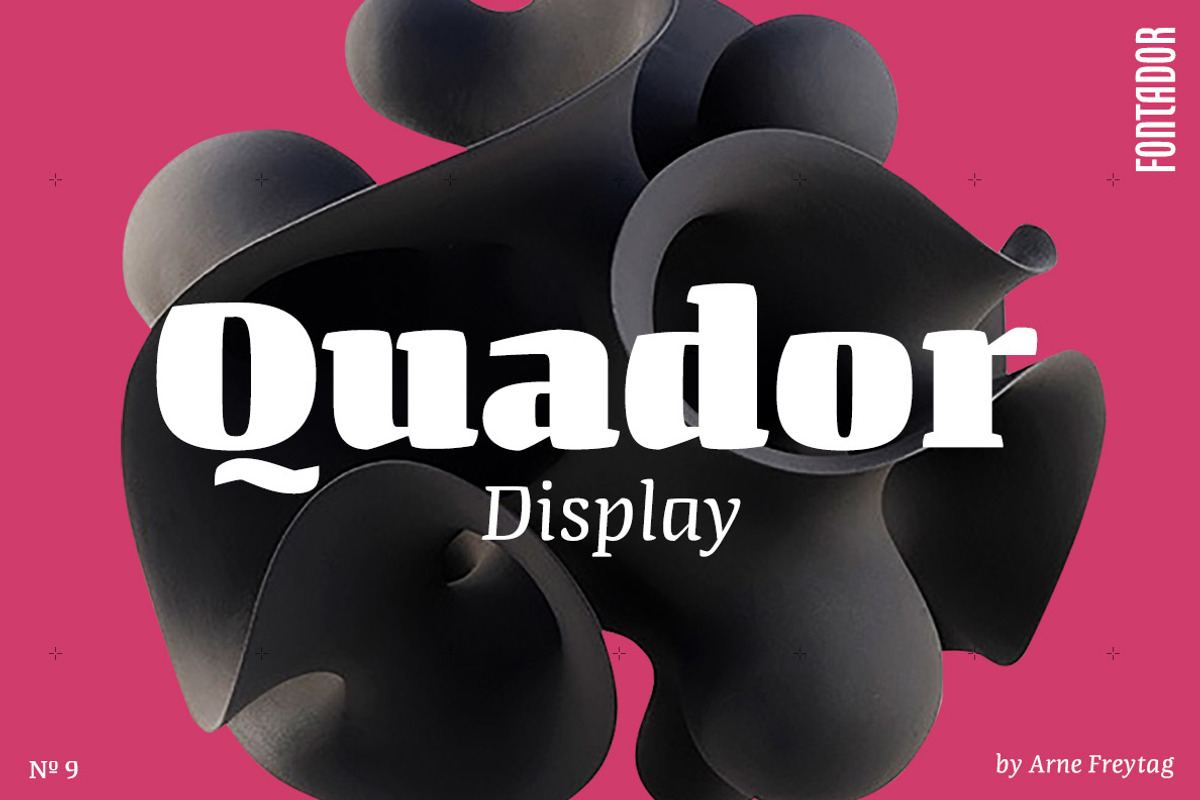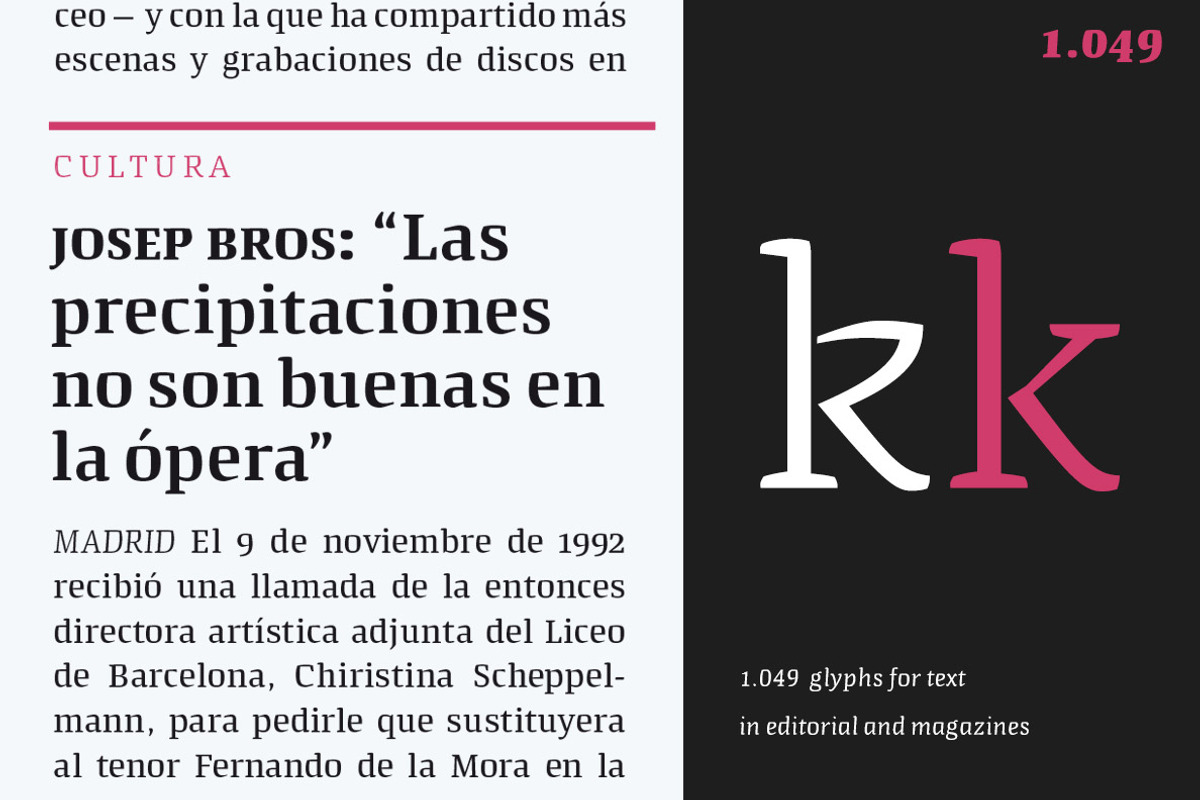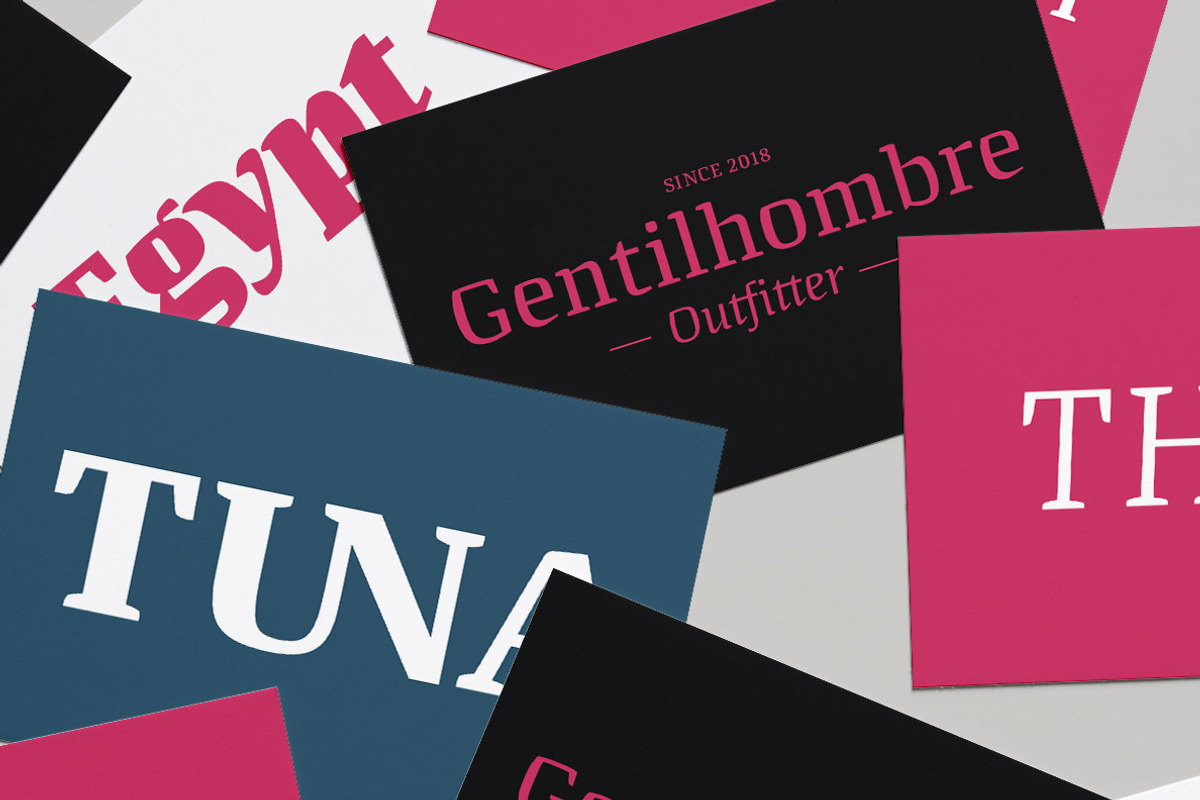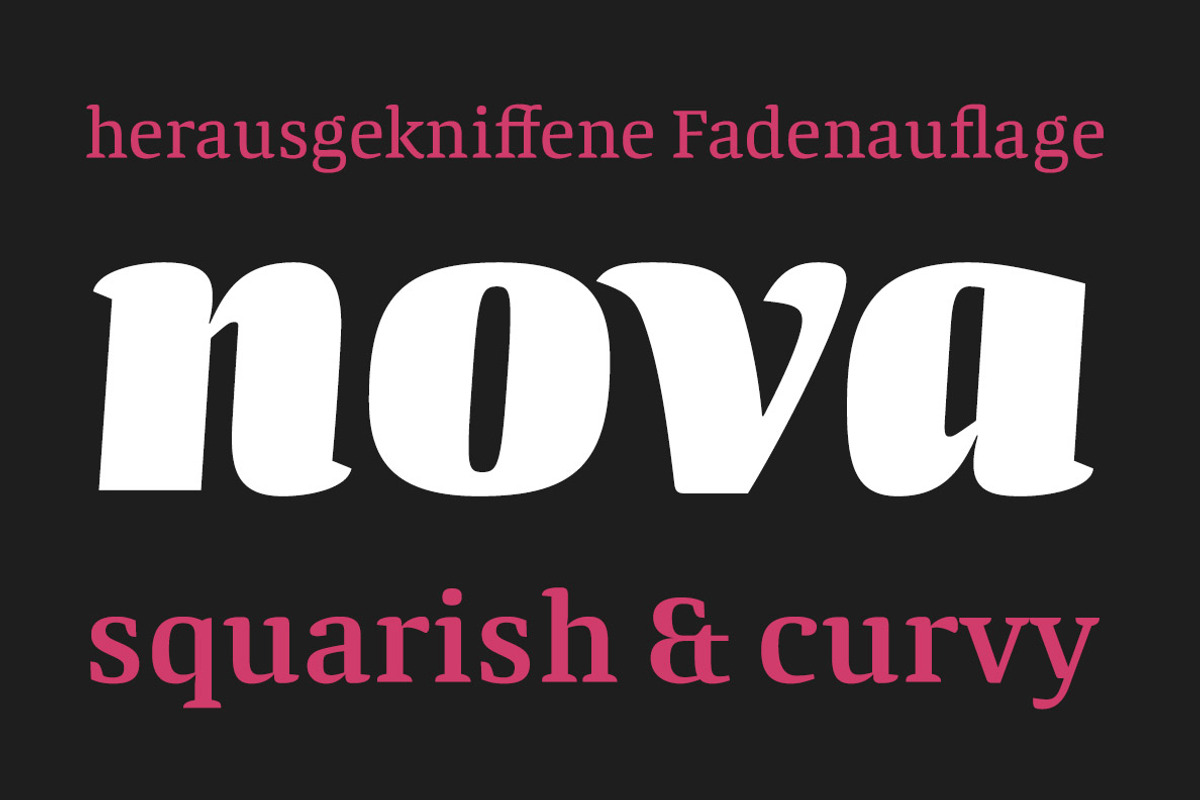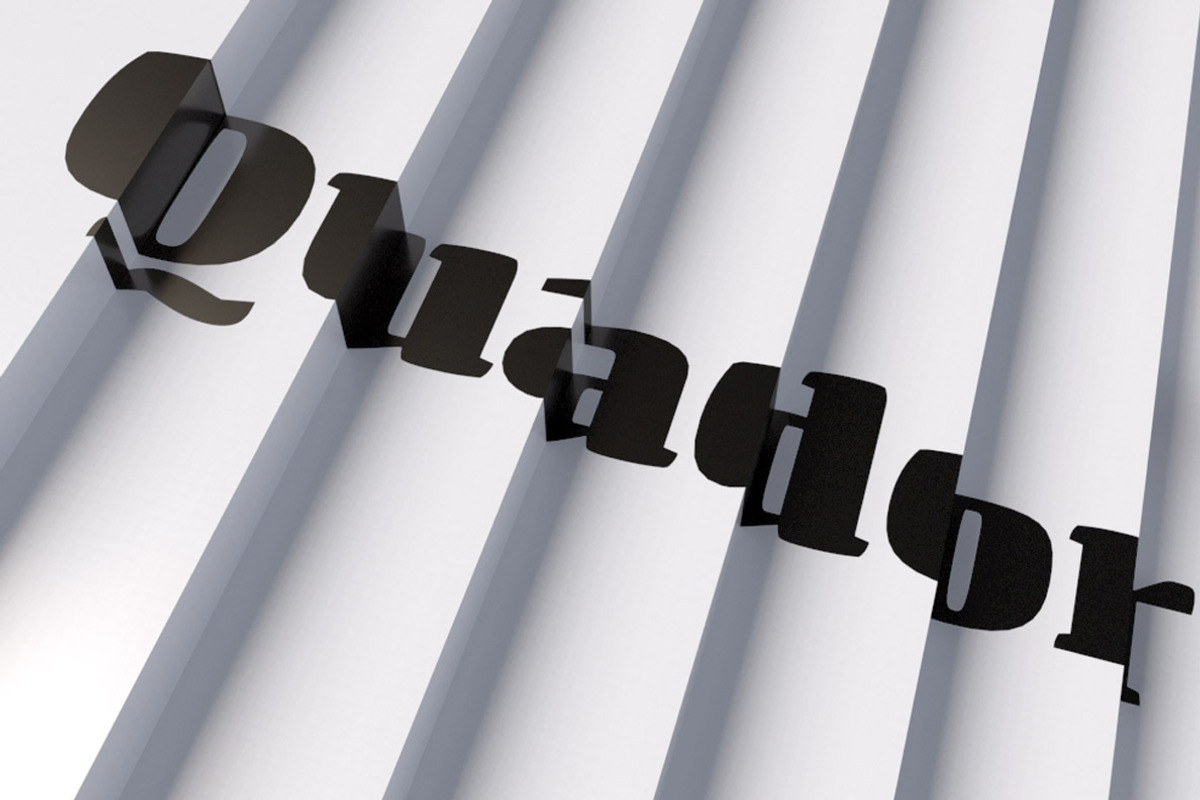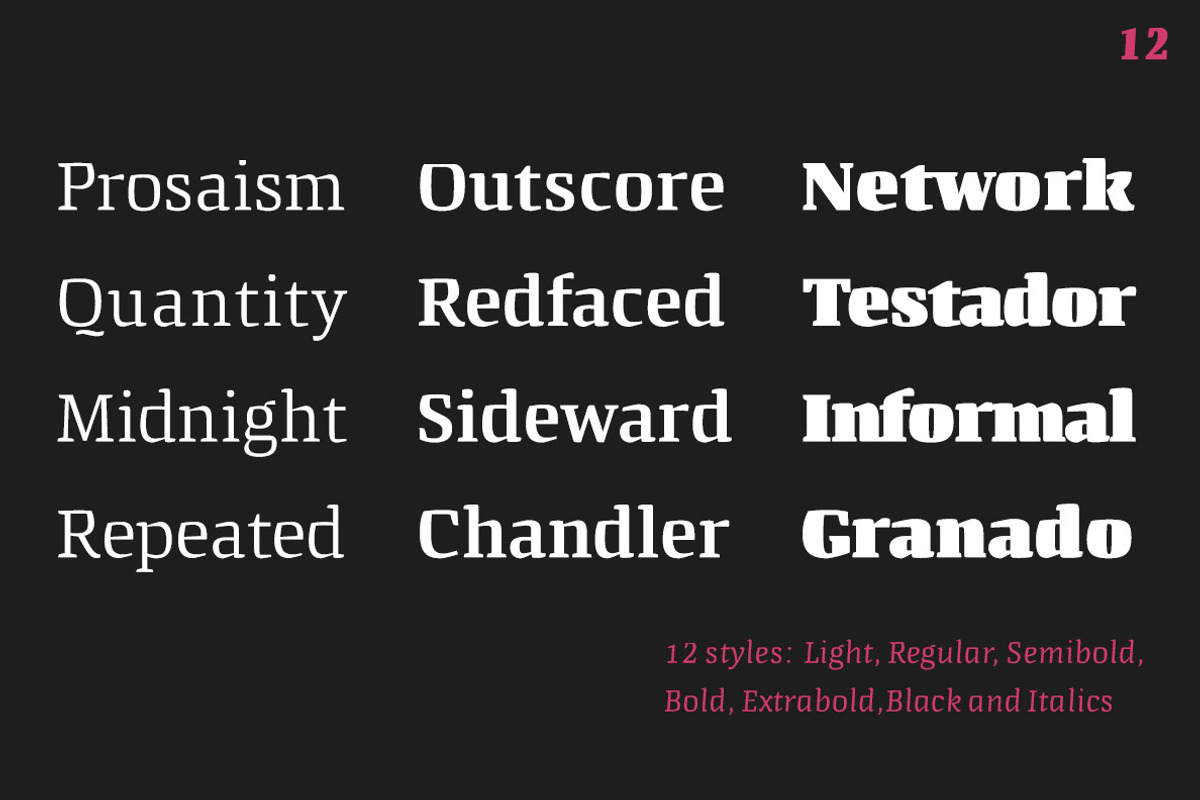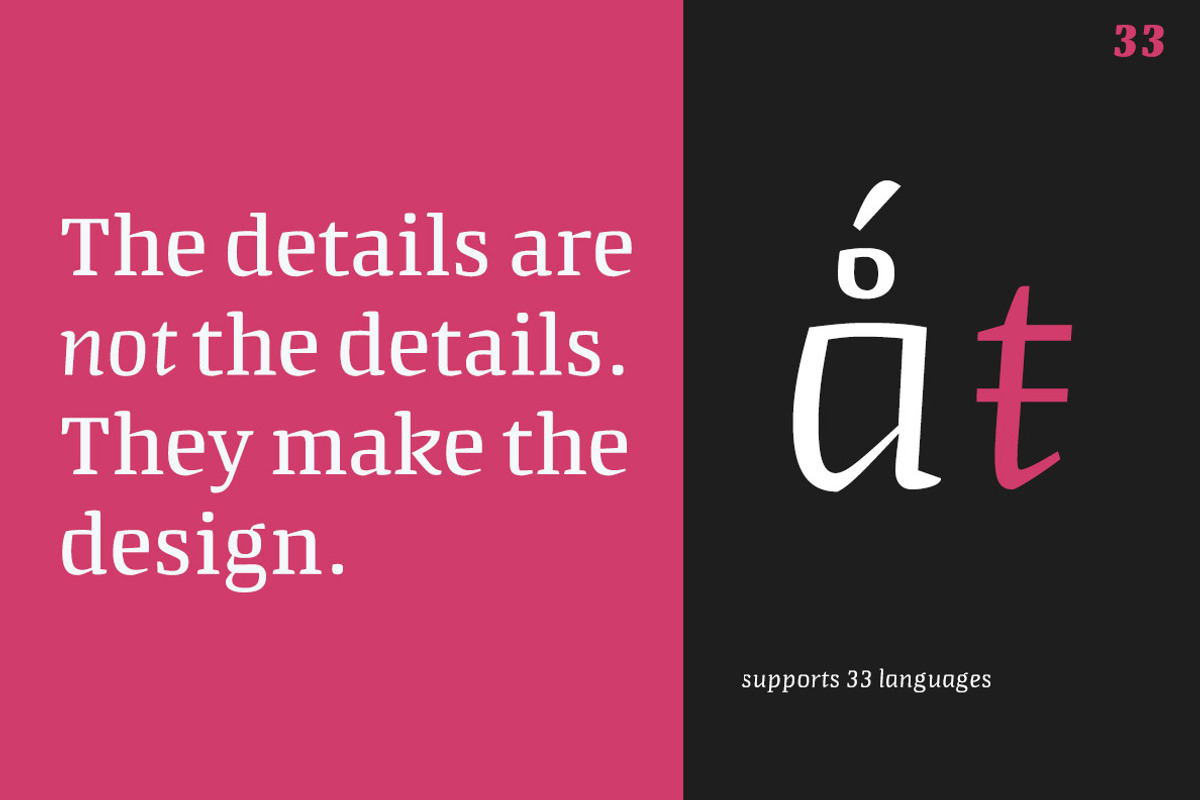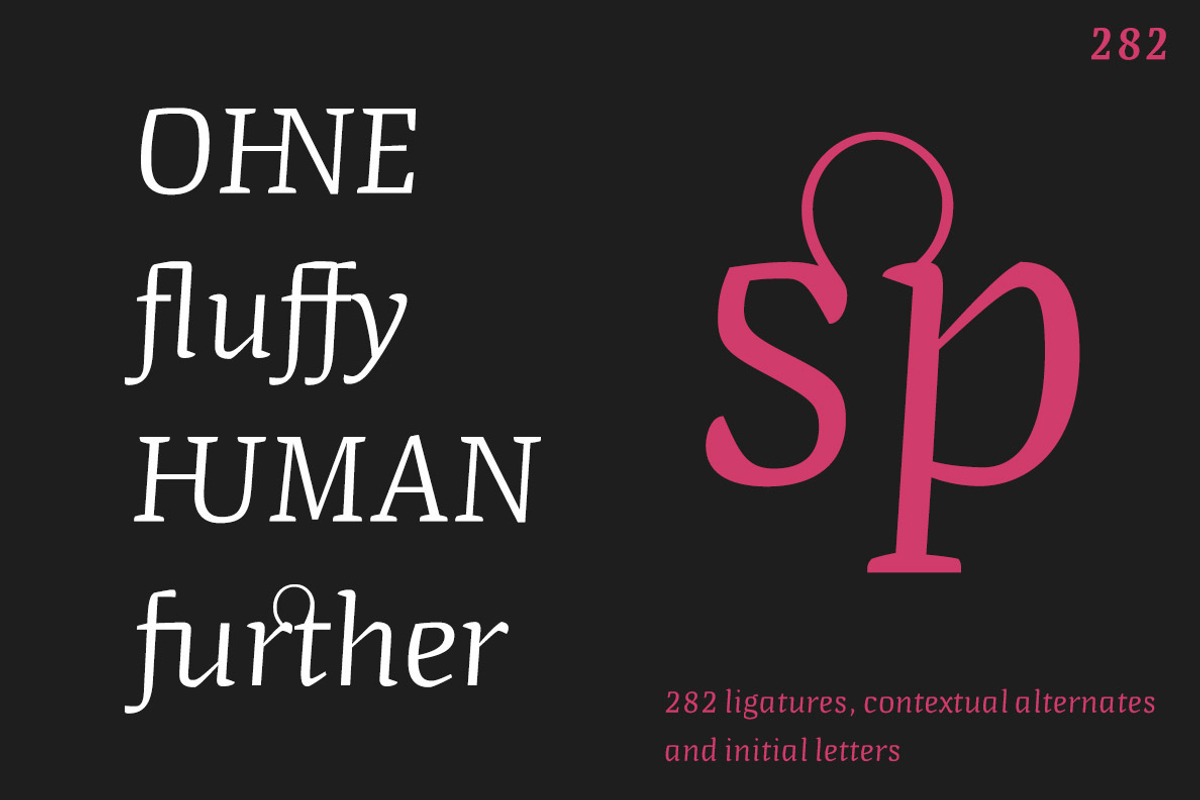
Quador Display
Quador Display is a serif, especially designed for contemporary typography on print and screen. The superellipse-based forms and high x-height allow large and open letterforms, perfectly adapted to the pixel grid on screen. The font contains 6 weights from light to ultrabold plus true italics. 1.049 glyphs include 282 ligatures, tabular, old style, fractions …, and a wide range of flexibility for latin language support for every typographical needs. Quador Display is a contemporary serif typeface, special for logotypes, brands, magazines and editorial.